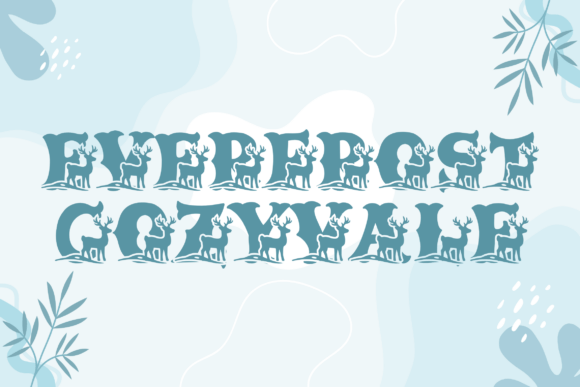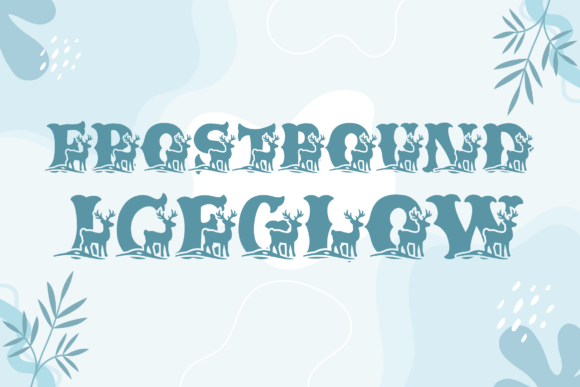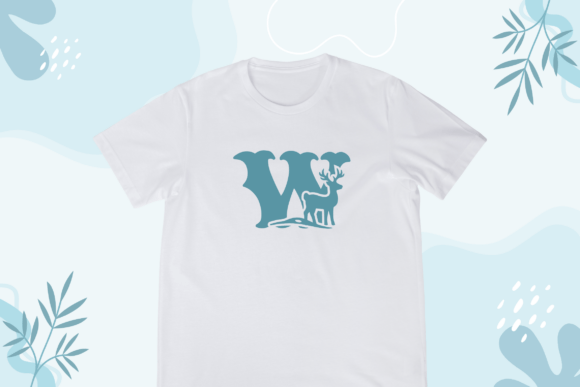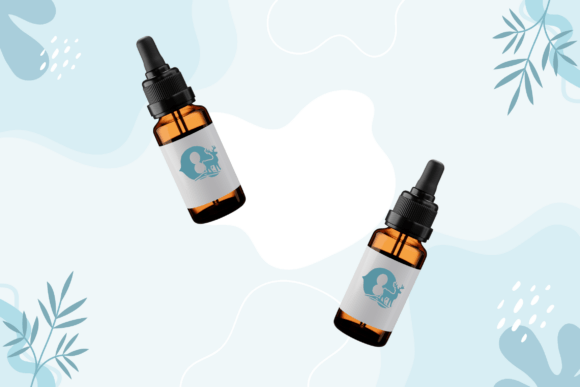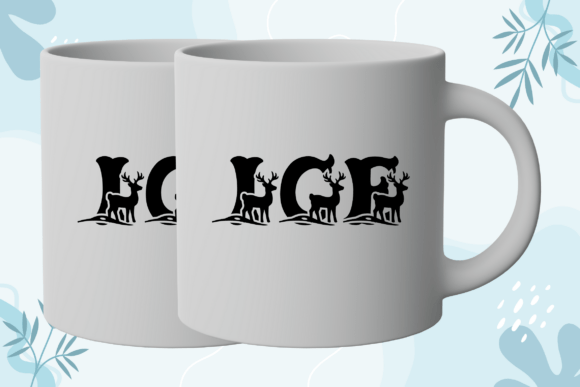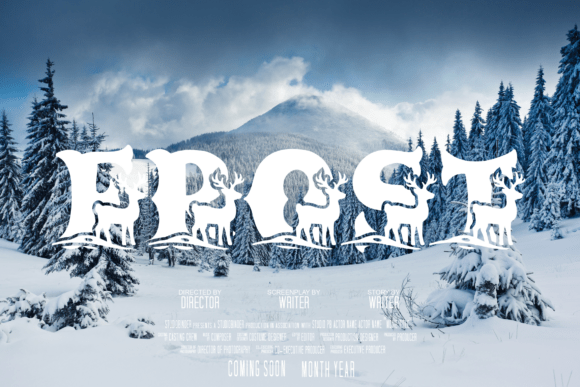
Caskford Winter Font: A Cozy Blend of Western Roots and Winter Charm
As the winter season approaches, designers and crafters are on the lookout for fonts that can evoke a sense of warmth, nostalgia, and coziness in their designs. If you’re looking for a font that can add a touch of rustic charm to your winter designs, look no further than Caskford Winter Font. This font takes the bold old western roots of Caskford and blends them with a cozy winter mood, making it perfect for a wide range of seasonal designs.
A Unique Blend of Western Grit and Winter Charm
Caskford Winter Font is a unique blend of western grit and winter charm. It retains the rugged, vintage structure of its predecessor, but softens the feel to suit seasonal designs. The letterforms are strong and readable, making them work beautifully from small labels to large headlines. This font is perfect for designers who want to create winter designs that still feel strong and timeless.
Versatile and Easy to Use
One of the best things about Caskford Winter Font is its versatility. It’s easy to install and works smoothly in popular design apps like Canva, Photoshop, Illustrator, and more. The font’s solid shapes print and cut cleanly for vinyl, stickers, laser projects, and screen printing, making it perfect for a wide range of applications. Whether you’re creating winter branding, holiday packaging, posters, mugs, apparel, rustic signs, or seasonal merch, this font has got you covered.
Perfect for Winter Branding and Designs
Caskford Winter Font is ideal for winter branding and designs that require a touch of rustic charm. Its bold and consistent letterforms make it easy to create layouts that come together quickly. The font’s mix of western grit and winter charm makes it stand out from typical holiday fonts, giving your designs a unique and distinctive look.
Use it for a Variety of Applications
Caskford Winter Font is perfect for a wide range of applications, including:
- Winter branding and marketing materials
- Holiday packaging and labeling
- Mugs and other drinkware
- Apparel and accessories
- Rustic signs and decorations
- Seasonal merch and gifts
Tips for Using Caskford Winter Font
Here are a few tips for using Caskford Winter Font in your designs:
- Start with short, bold statements to make a big impact
- Pair the font with images or graphics that evoke a winter or western theme
- Use the font’s bold and consistent letterforms to create visually appealing layouts
Caskford Winter Font is a unique and versatile font that’s perfect for designers and crafters who want to add a touch of rustic charm to their winter designs. With its bold and consistent letterforms, ease of use, and mix of western grit and winter charm, this font is sure to become a go-to for seasonal designs. Whether you’re creating winter branding, holiday packaging, or seasonal merch, Caskford Winter Font is the perfect choice.